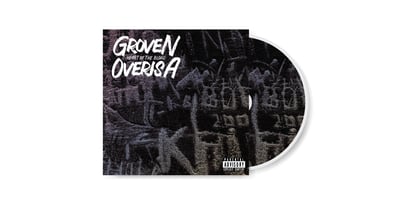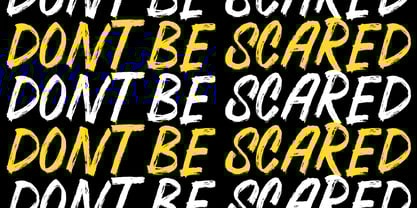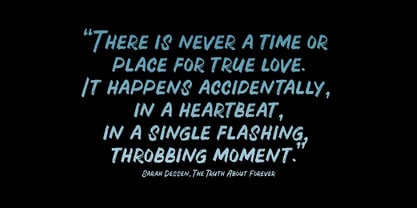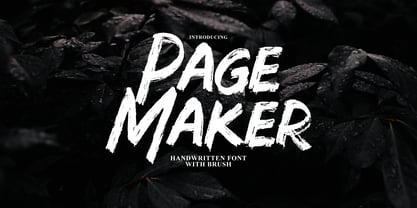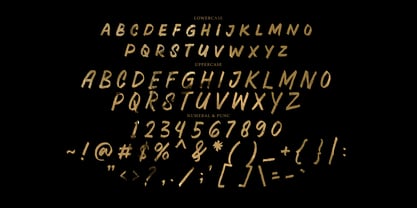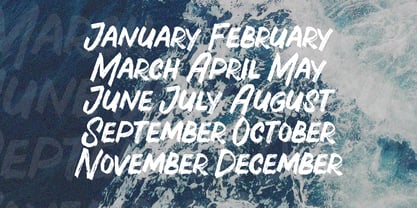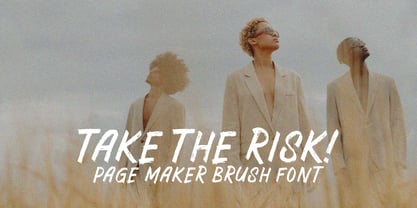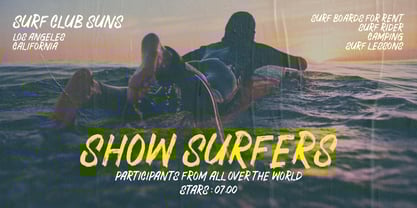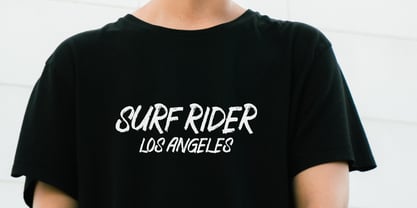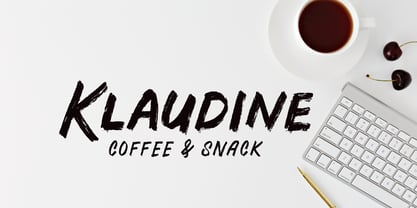
Page Maker Brush
by Tebaltipis Studio
The Page Maker Brush Font Family was designed by Dzulka Elfira and published by Tebaltipis Studio. Page Maker Brush contains 1 styles. More about this family
Page Maker Brush is a typeface with personality. You can use it as a logo, badge, insignia, packaging, headline, poster, etc The alternative characters in this font were divided into several OpenType features such as Stylistic Alternates, Stylistic Sets, and Ligature. The OpenType features can be accessed by using OpenType program such as Adobe Illustrator, Adobe Photoshop, and Adobe InDesign.
Designers: Dzulka Elfira
Foundry: Tebaltipis Studio